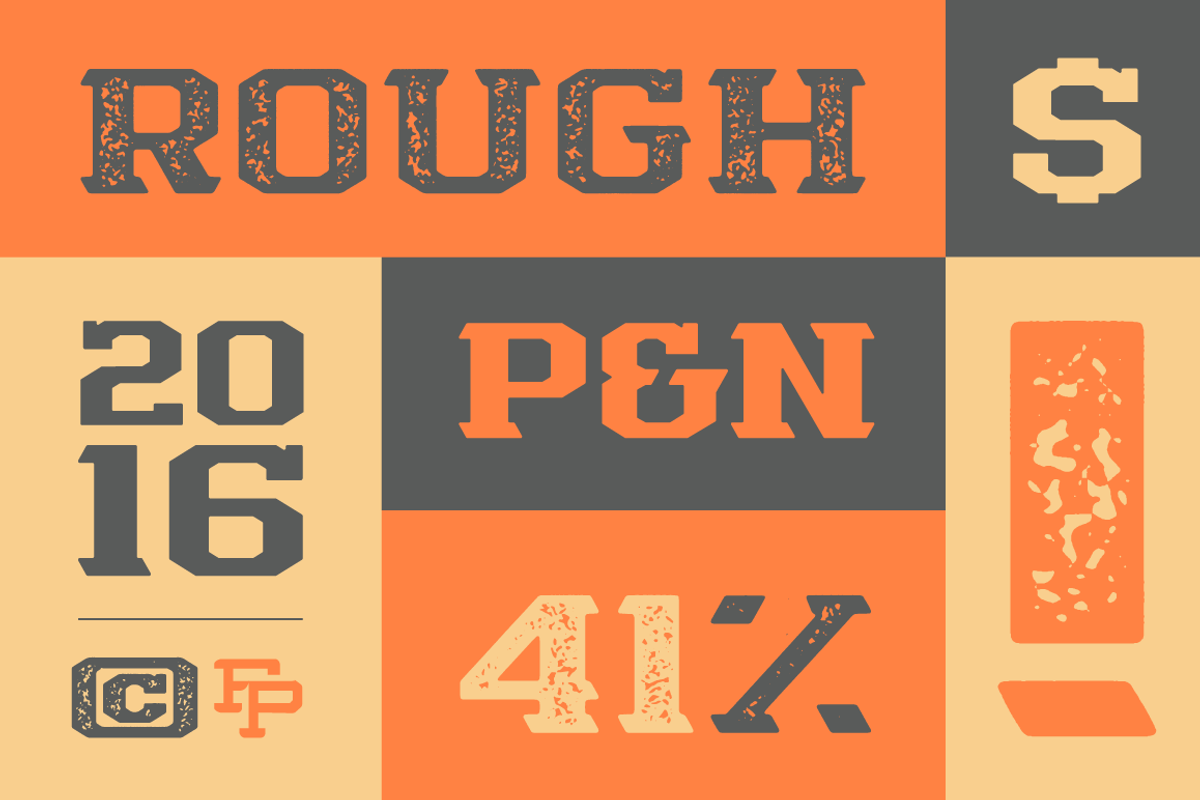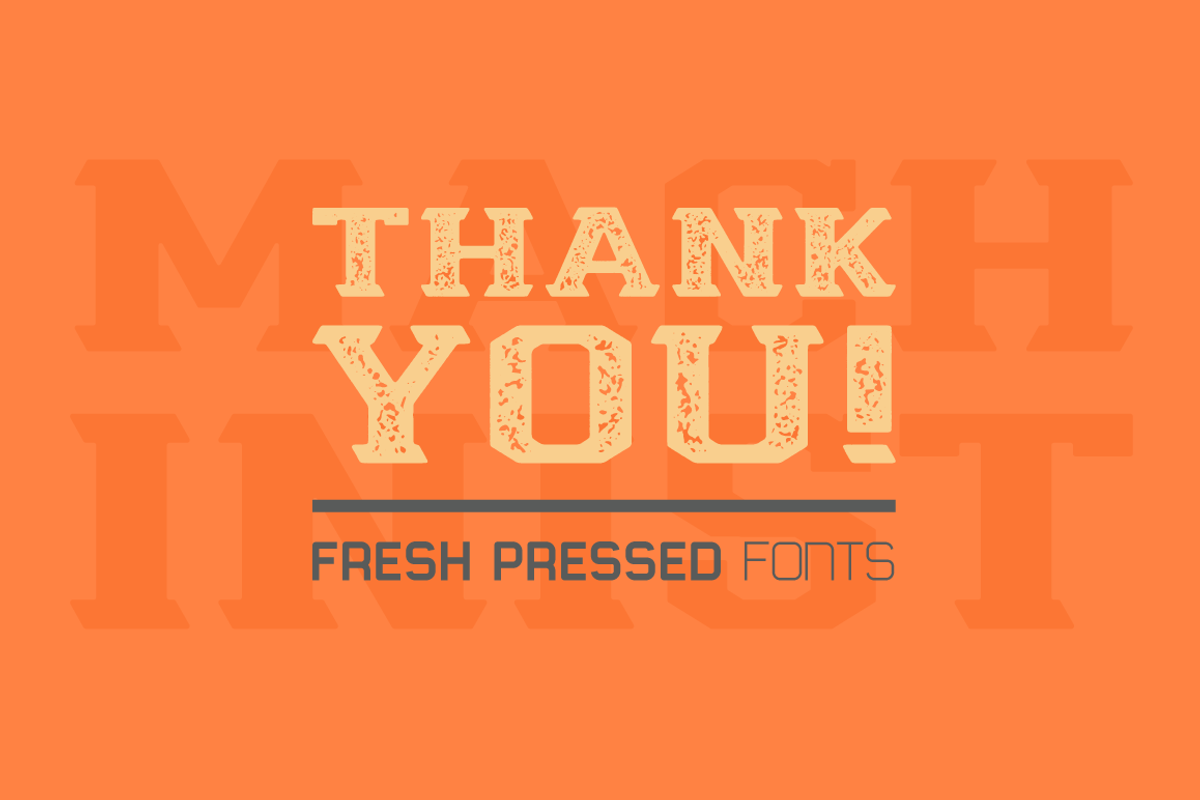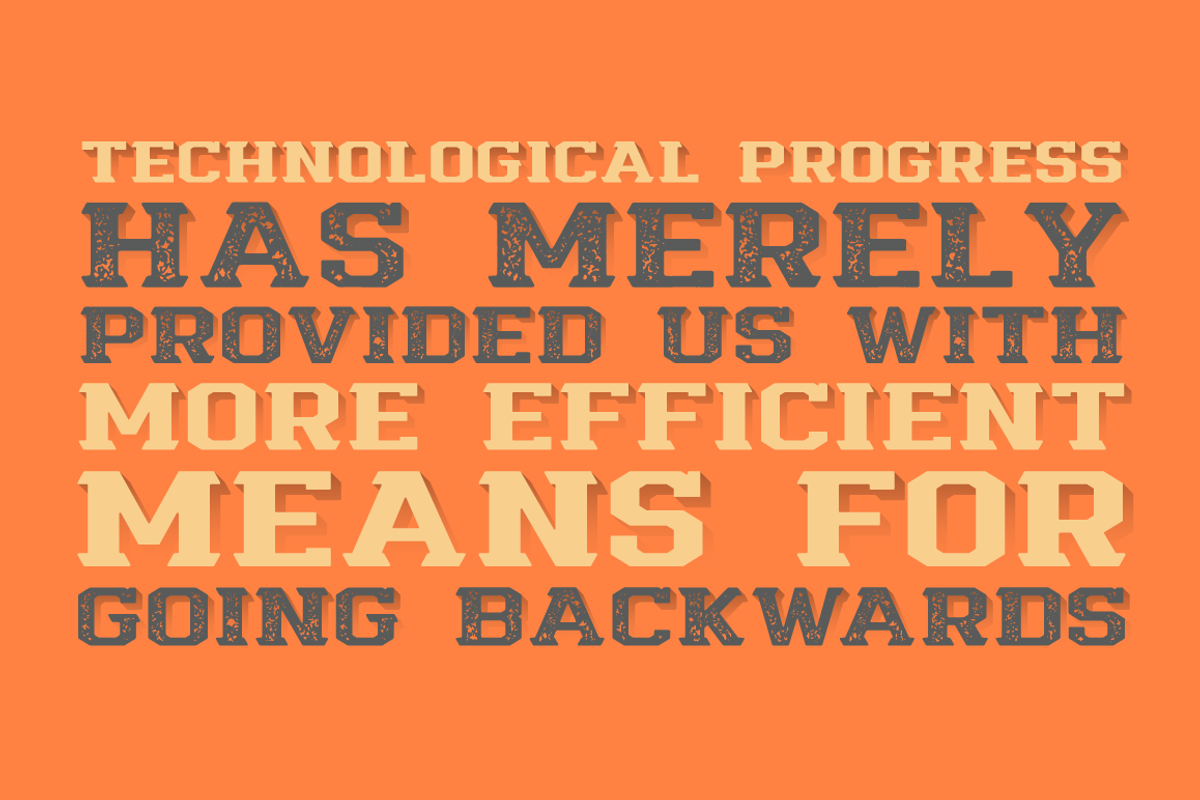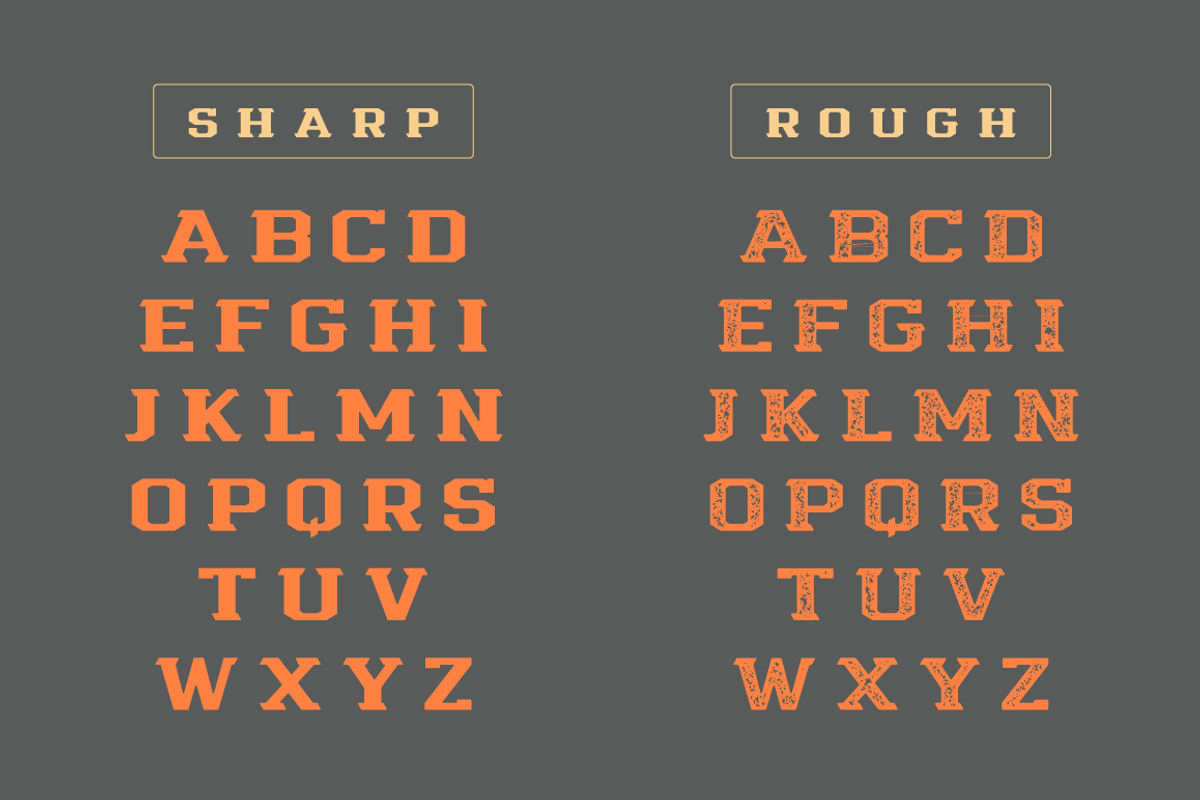
Machinist Display Font
Machinist Display Font by Fresh Pressed Fonts is a font selected for branding, posters, packaging, typography.
- With uppercase, international language support, and plenty of supporting glyphs, Machinist can be used in a variety of different ways in you
- Machinist Rough
- Machinist Sharp
Machinist Display Font by Fresh Pressed Fonts fits naturally into Branding, posters, packaging, typography.